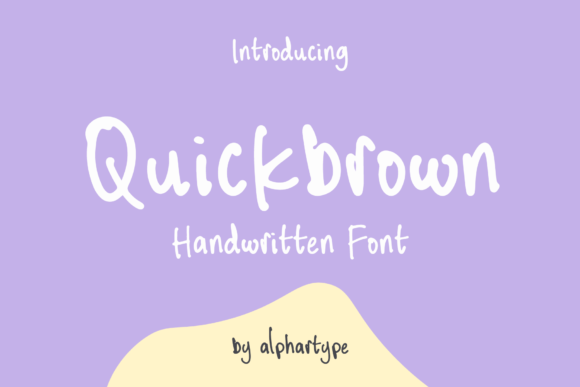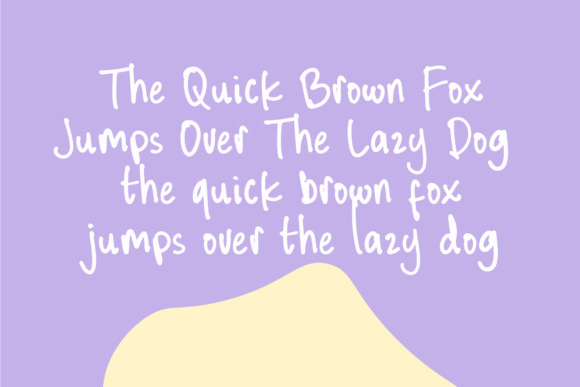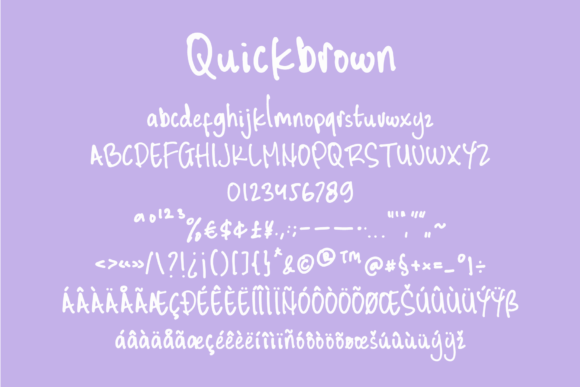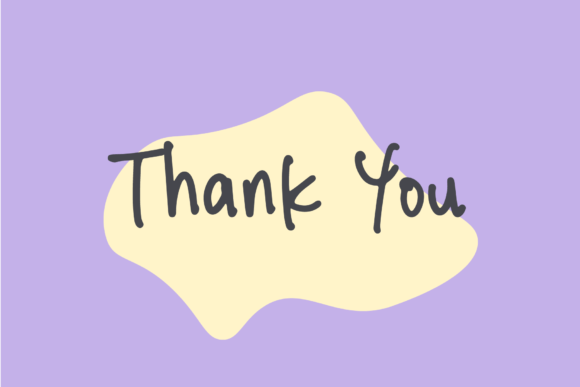
Quickbrown Font
About Quickbrown Font
“Quickbrown” is a fun and friendly handwritten font that infuses a sense of playfulness into your creative projects. Whether you’re using it for crafts, digital design, presentations, or crafting greeting cards, this font has all the qualities to become your favorite go-to choice, no matter the occasion.
The charm of “Quickbrown” lies in its fun and friendly lettering. Its whimsical characters and approachable style create a visually engaging and delightful experience, making it an ideal choice for projects that aim to convey a sense of creativity and friendliness.
One of the standout qualities of “Quickbrown” is its versatility. Whether you’re designing for personal or professional projects, this font adapts seamlessly to your creative vision. It invites you to explore a wide range of design possibilities and infuse a sense of fun into your work.
“Quickbrown” is more than just a font; it’s a creative tool that can add a playful touch to your projects. Whether you’re a professional designer seeking a versatile and fun font for your client work or an enthusiast passionate about crafting and design, “Quickbrown” is here to make your designs stand out with its fun and friendly script. Embrace the whimsy of “Quickbrown,” and let your creativity flow, no matter the occasion.